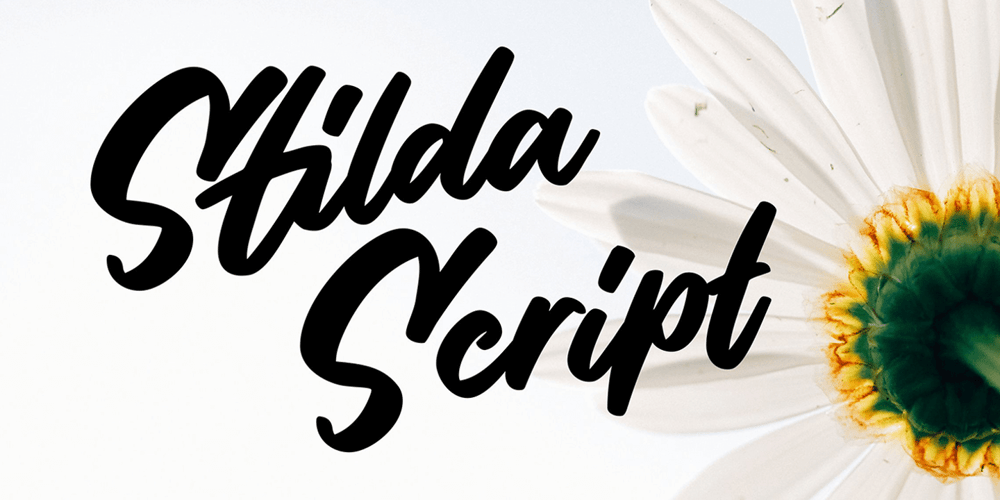
Stilda Script Font Family was designed by Virgiawan Listanto and published by Stringlabs Creative Studio. Stilda Script contains 1 styles and family package options. Stilda embodies fun, quirkiness and authenticity. This enchanting script font will turn any creative idea into a true standout.